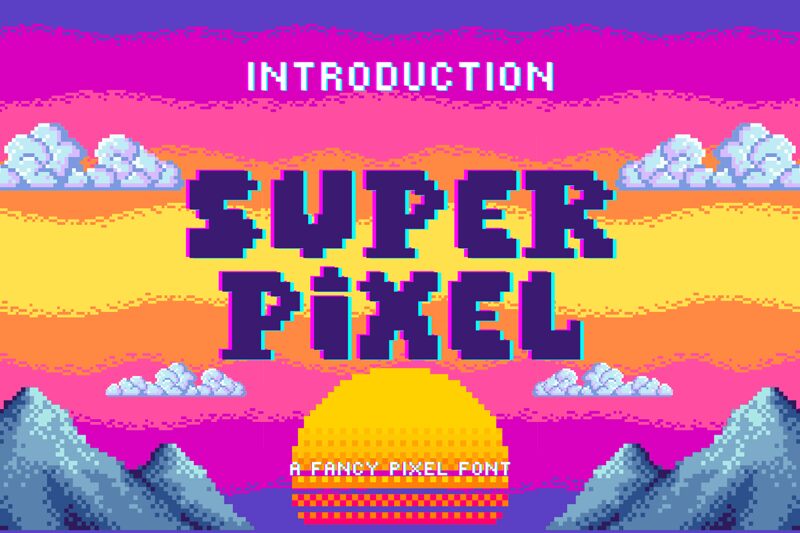
Super Pixel
Super Pixel, crafted by fsuarez913, is a bold display font that exudes a digital charm reminiscent of vintage video game aesthetics. Its blocky, pixelated letterforms convey a sense of nostalgia while maintaining readability and impact. The style is deliberately chunky and attention-grabbing, making it an ideal choice for projects that require a touch of retro flair.
Its robust appearance lends itself perfectly to eye-catching headlines, standout logos, and dynamic branding elements. Super Pixel thrives in contexts that celebrate the digital age's early days—think arcade-themed designs, tech event posters, or any creative work seeking to capture the essence of 8-bit graphics and beyond.
Super Pixel: Where Fancy, Bold, and Unique Pixels Collide
Super Pixel isn't your average pixel font. It's a bold statement for those who crave uniqueness. It's where playful fancy meets uncompromising strength, all rendered in the charming grit of pixels.
Its robust appearance lends itself perfectly to eye-catching headlines, standout logos, and dynamic branding elements. Super Pixel thrives in contexts that celebrate the digital age's early days—think arcade-themed designs, tech event posters, or any creative work seeking to capture the essence of 8-bit graphics and beyond.
Super Pixel: Where Fancy, Bold, and Unique Pixels Collide
Super Pixel isn't your average pixel font. It's a bold statement for those who crave uniqueness. It's where playful fancy meets uncompromising strength, all rendered in the charming grit of pixels.